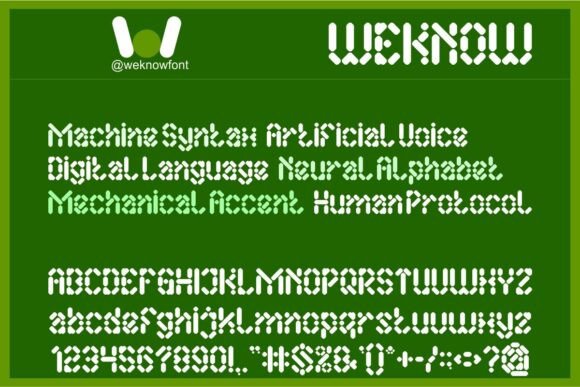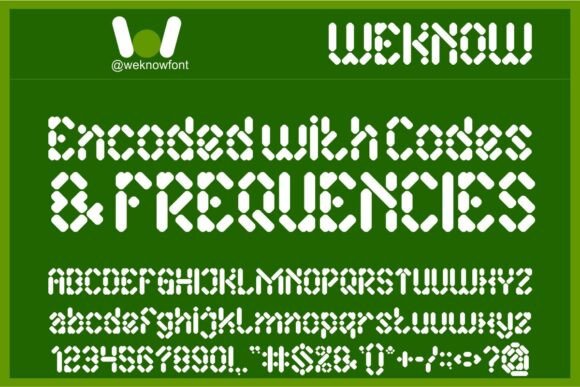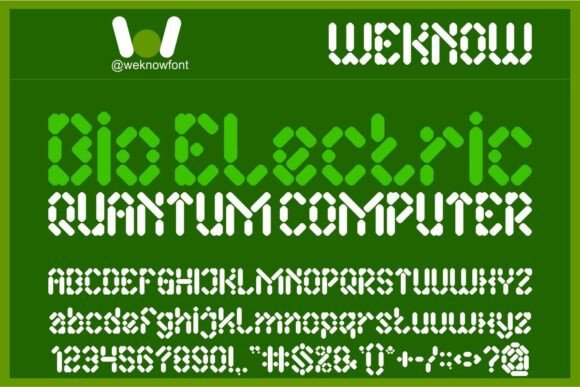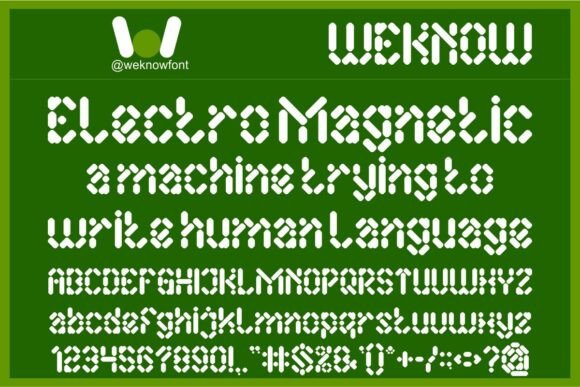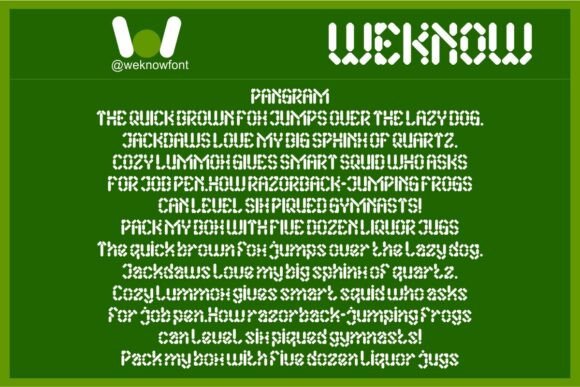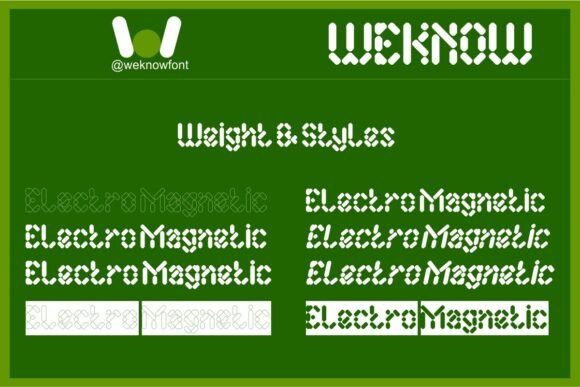
Unlocking the Power of Electro Magnetic Font: A Revolutionary Fusion of Technology and Artistry
In the realm of typography, few fonts have managed to capture the essence of modernity and futurism as effectively as the Electro Magnetic font. This versatile display font represents a bold marriage of geometric structure and cutting-edge sentiments, making it an ideal choice for designers and crafters looking to infuse their work with a sense of high-tech sophistication.
The Birth of a Futuristic Font
Electro Magnetic font is designed as a stencil-segmented typography that breathes new life into the neo-constructivist aesthetics. By infusing digital nodes and mystic cyberglyphs, this font successfully bridges the gap between traditional geometric structures and futuristic sentiments. The result is a waveform of creativity that echoes both the high-tech rhythm of pixel-mosaic and the experimental wonder of sci-fi lettering.
A Perfect Complement to Daring Logos and Brand Identities
Whether you’re a fashion designer looking to create a bold logo for your high-fashion apparel brand or a gamer seeking to establish a distinctive identity for your online presence, Electro Magnetic font is the perfect choice. Its unique blend of technology and artistry makes it an equally compelling option for the music and cinema industries, where visual narrative and brand identity are paramount.
Exploring the Versatility of Electro Magnetic Font
One of the most significant advantages of Electro Magnetic font is its versatility. Rendered in the format of a gripping headline for a magazine, book, or comic, it can instantly elevate the visual narrative of your design. Moreover, its appeal extends to the vibrant digital landscapes of YouTube, Instagram, and countless online platforms, making it an ideal choice for digital designers and social media influencers.
Designing with Electro Magnetic Font: Tips and Tricks
To truly harness the power of Electro Magnetic font, designers and crafters should consider the following tips and tricks:
- Experiment with different colors and textures: Electro Magnetic font provides a versatile canvas for creative experimentation. Try pairing it with bold colors and textures to create a truly eye-catching design.
- Mix and match with other fonts: Electro Magnetic font can be paired with a range of other fonts to create a unique visual narrative. Experiment with different combinations to find the perfect fit for your design.
- Pay attention to typography: As with any font, typography plays a crucial role in bringing Electro Magnetic font to life. Pay attention to spacing, alignment, and line height to ensure a polished finish.
The Future of Design: How Electro Magnetic Font Can Fuel Your Creative Journey
In today’s fast-paced design landscape, staying ahead of the curve requires a willingness to experiment and push boundaries. Electro Magnetic font represents a bold step into the future of design, offering a unique fusion of technology and artistry that can fuel your creative journey.
Whether you’re a seasoned designer or a crafty DIY enthusiast, Electro Magnetic font provides a versatile toolkit for exploring new ideas and expressing your unique vision. By embracing this revolutionary font, you can:
- Elevate your brand identity: Electro Magnetic font provides a distinctive and recognizable visual narrative that can help establish your brand identity and set you apart from the competition.
- Enhance your visual storytelling: With its bold and futuristic design, Electro Magnetic font can help bring your visual narrative to life and captivate your audience.
- Unlock new creative possibilities: By experimenting with Electro Magnetic font, you can discover new design possibilities and push the boundaries of what’s possible in the world of typography.
In conclusion, Electro Magnetic font represents a bold fusion of technology and artistry that can transform your design journey. Whether you’re looking to establish a distinctive brand identity, enhance your visual storytelling, or simply explore new creative possibilities, this revolutionary font is the perfect choice.